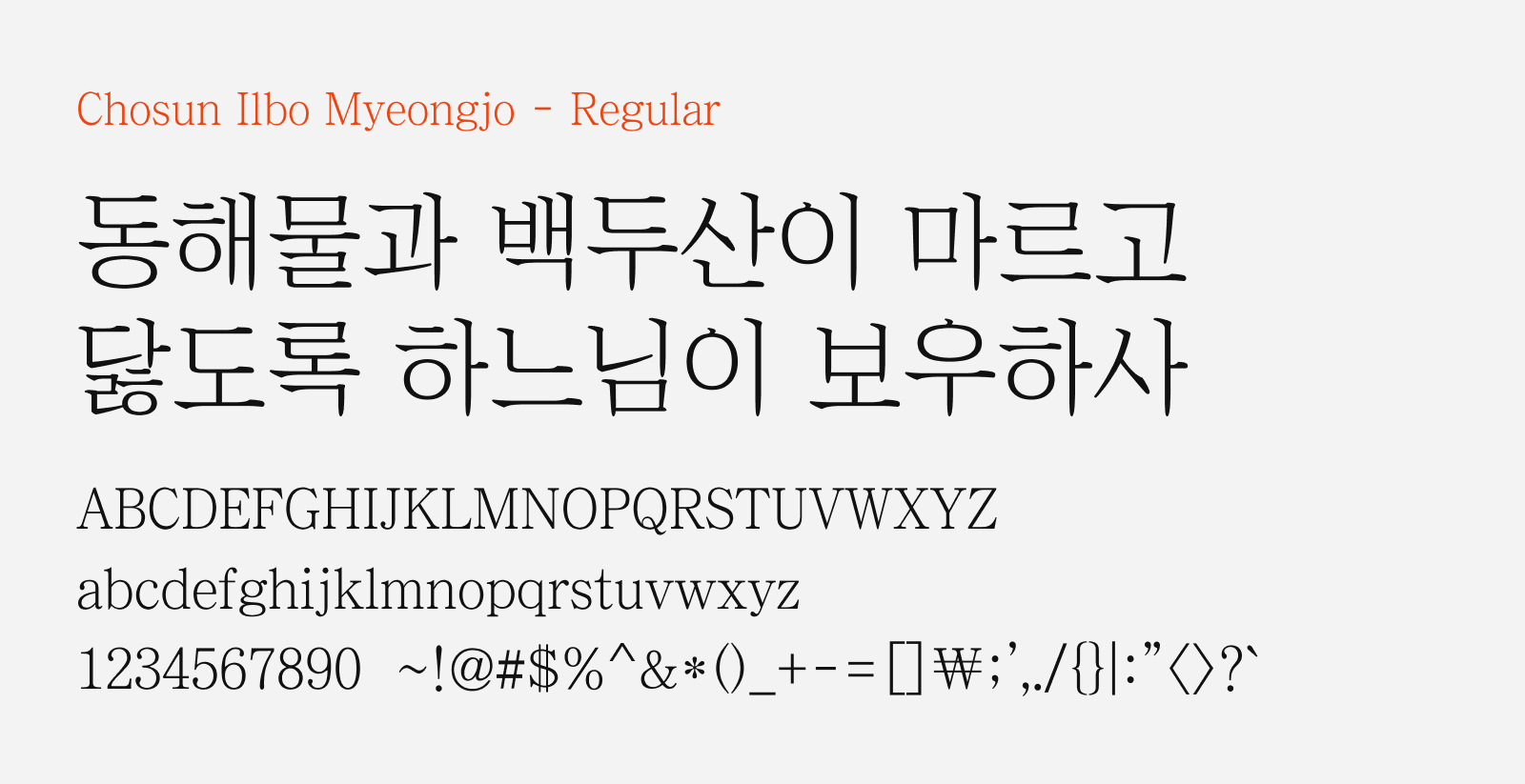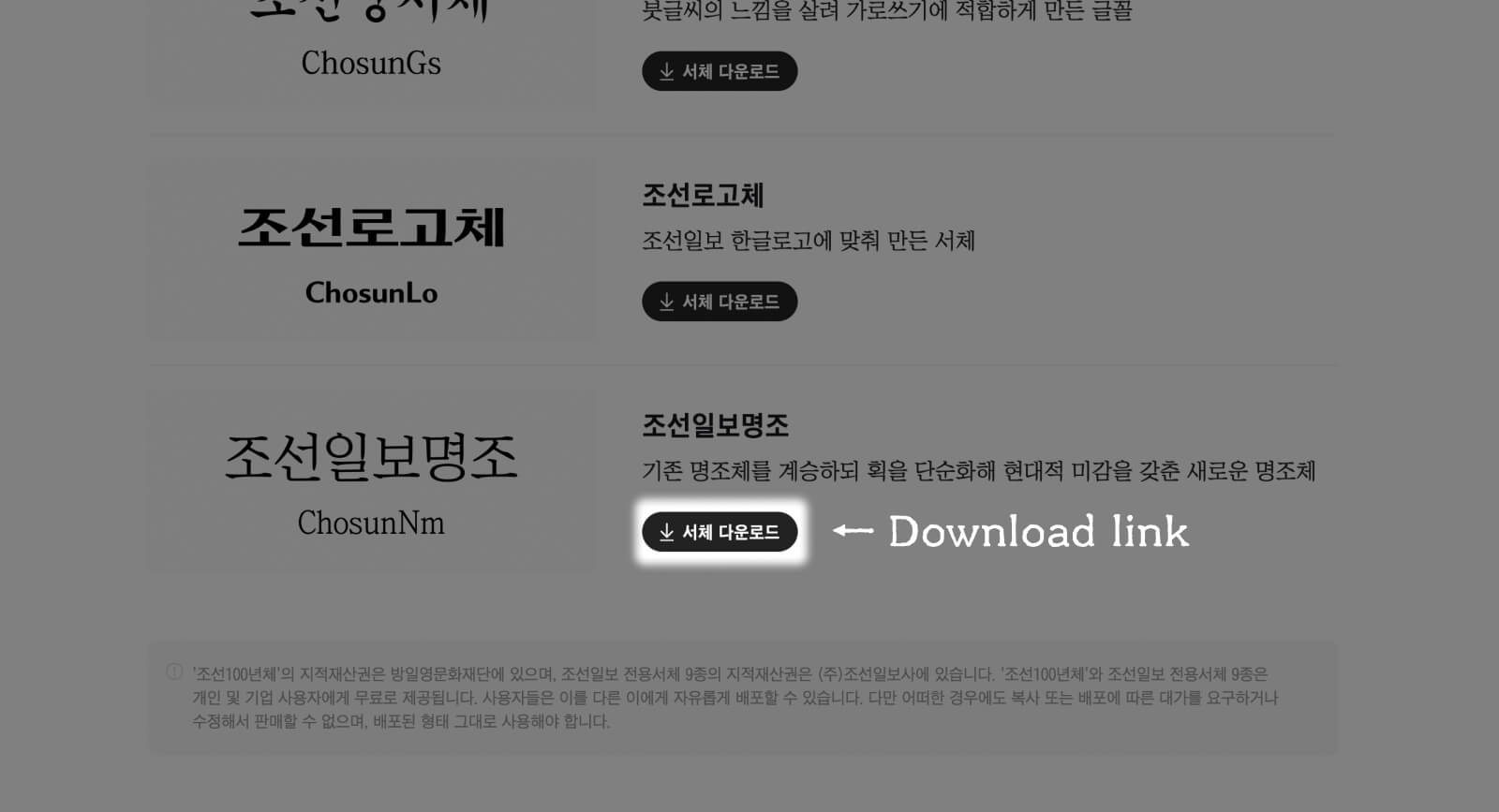
Chosun Ilbo Myeongjo
Chosun Ilbo Myeongjo (조선일보명조) is the most recognized typeface in the Chosun Ilbo’s (or “Korean Daily” in English) font collection, a familiar typeface to the loyal readers of the newspaper. It is a new myeongjo typeface that inherits the lineage of existing classic forms while simplifying the strokes to achieve a modern aesthetic, striking a balance between tradition and contemporary design sensibility.
Due to its letterforms that are so widely seen and deeply familiar, Chosun Ilbo Myeongjo carries a sense of quiet authority, making it broadly versatile, though its familiarity also means it reads as understated rather than distinctive in logotype or headline contexts. It comes with single Regular weight, and this upgraded version was released for free to commemorate the 100th anniversary of the newspaper founding. You can download this font and be used freely on personal and commercial projects.